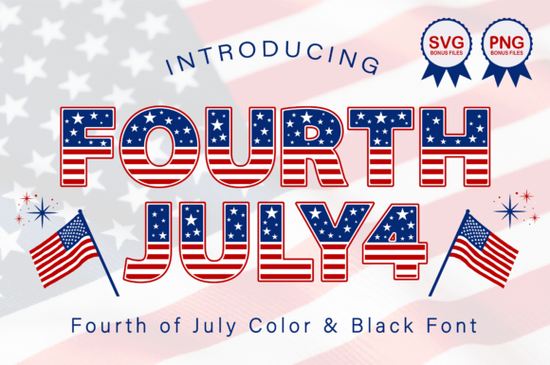
If you are looking for a typeface that captures the look and feel of the American flag without relying on heavy graphics, the Fourth July Font delivers exactly that. This display style weaves red, white, and blue stripes directly into the letterforms, making it a practical choice for Independence Day posters, veteran appreciation shirts, classroom decorations, and small business summer sales. Instead of spending hours masking flag textures over plain text, you can type your message and let the built-in color layers do the visual work.
What makes this typeface stand out for patriotic projects?
The main advantage here is the pre-colored glyph structure. Each character carries a layered flag pattern, which means you get consistent spacing and clean edges across every word. For crafters cutting vinyl, the bold weight holds up well on weeding mats and prevents fragile details from tearing. Print-on-demand sellers will appreciate how the high-contrast stripes remain sharp on garments, especially when you add a subtle drop shadow in your design software. If you usually browse through a hand drawn color font collection for seasonal releases, you will notice how this style keeps a structured feel while still delivering that handmade patriotic energy.
How can you use it for print-on-demand and crafts?
Summer merchandise moves quickly, and having a ready-made patriotic typeface speeds up your workflow. Here are a few reliable applications:
- Apparel: Center-aligned quotes on cotton tees, sleeve prints for youth sizes, and distressed overlays for vintage-style tanks.
- Home & Party Decor: Yard signs, cupcake toppers, banner lettering, and reusable table runners for community events.
- Digital Products: Printable wall art, classroom reward certificates, and social media templates for local business promotions.
When building a seasonal catalog, it helps to mix bold display letters with simpler supporting text. If you want to explore other playful options for kids’ summer crafts, a super cute font style can balance the heavy flag stripes and keep your layout feeling light.
What should you pair it with for balanced layouts?
Because the letterforms already carry strong visual weight, your secondary typeface should stay neutral. Clean sans-serifs or thin script accents work well. Avoid pairing it with another heavily textured typeface, as the design will compete for attention. For example, if you are creating a holiday gathering notice, reserve the flag lettering for the main headline and switch to a simple rounded sans for the date and location. When you need a softer decorative touch for children’s activities, a bubble dot rainbow font can add a festive pop without overwhelming the primary message.